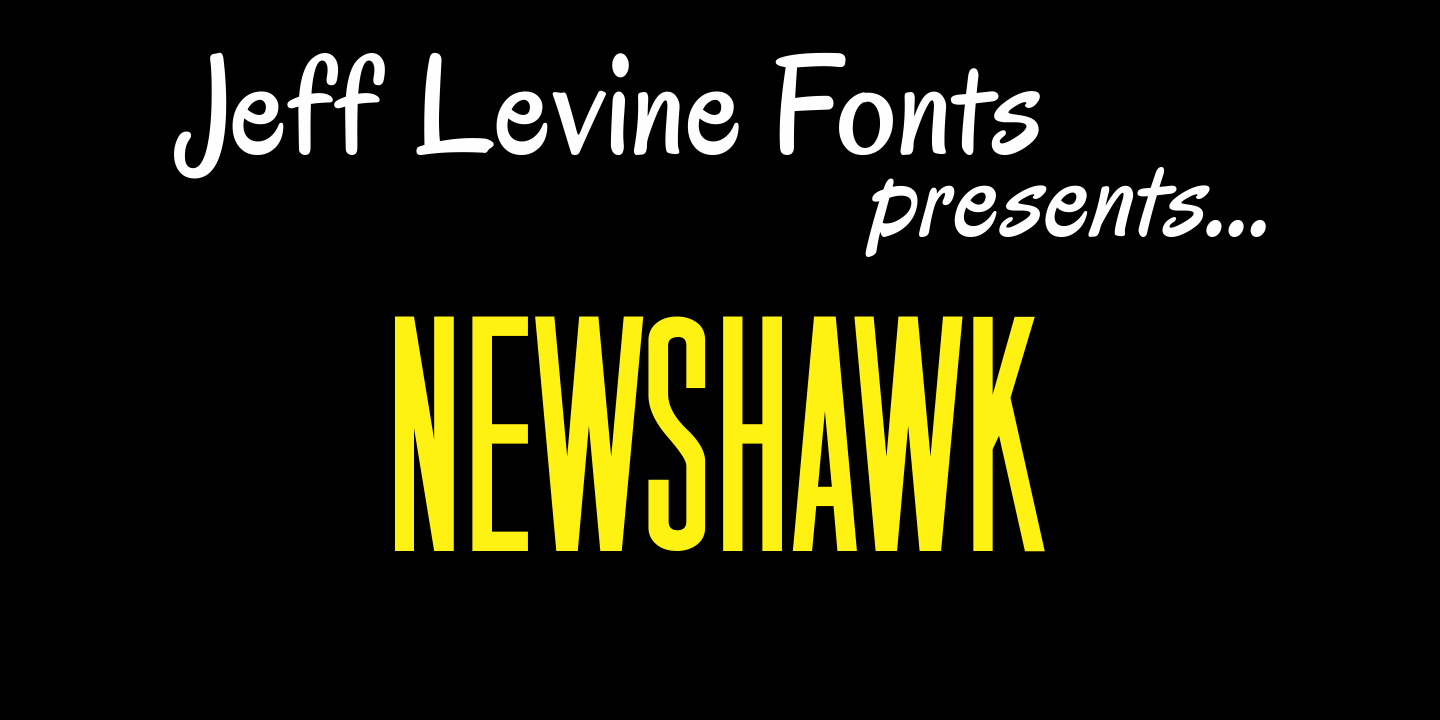
Newshawk
Jeff Levine's Newshawk JNL emulates the tall, condensed headline fonts often used years ago when an urgent story broke and a newspaper rushed an "Extra" edition to the streets.